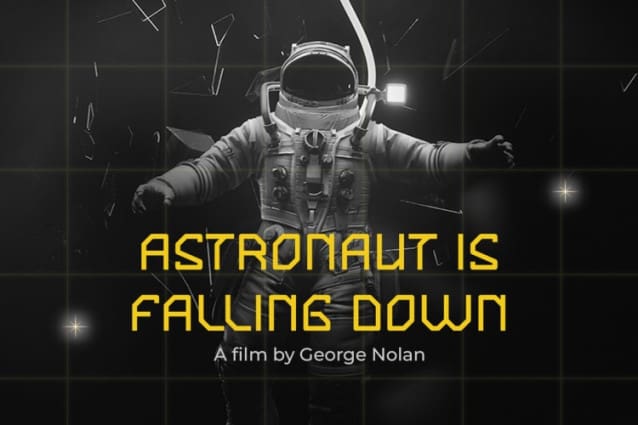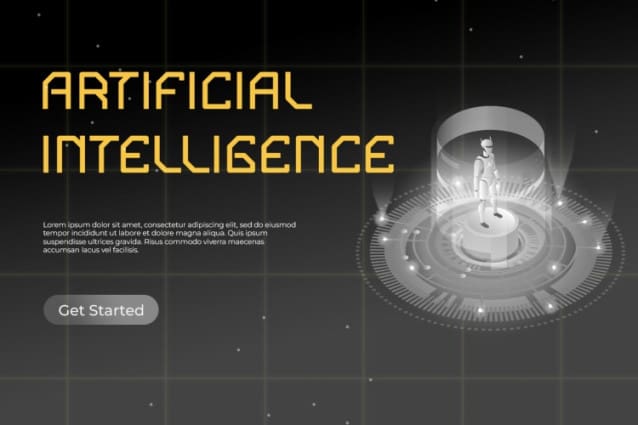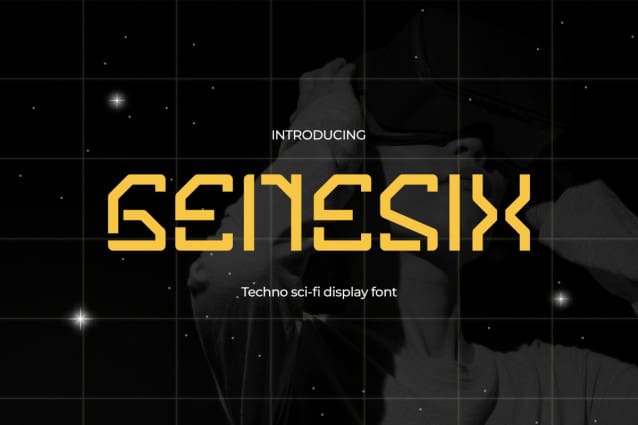
Ggenesix Futuristic Font
Ggenesix Futuristic Font, an exclusive font designed to add a creative touch to your projects! Genesix is more than just a font; it is a tool to express personality and uniqueness in every letter. Another advantage is its flexibility, allowing this font to be used in various projects, ranging from graphic design to promotional materials.